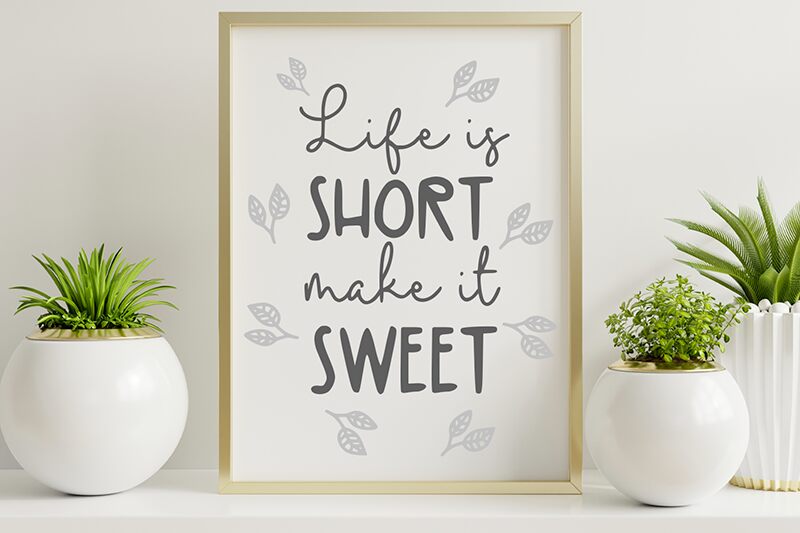
Baby Mayora Script
Baby Mayora Script is a beautiful handwritten font from Panggah Laksono of Abo Daniel Studio. The light font family is perfect for crafting unique designs and adding a personal touch to projects. Its playful letterforms make it ideal for designing greeting cards, invitations, logos, branding, and other creative projects. Add an extra dose of personality to your designs with Baby Mayora Script!